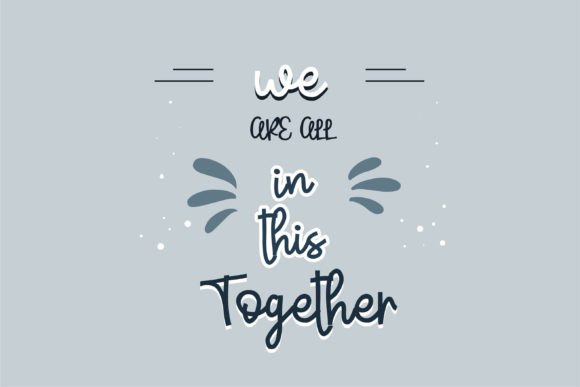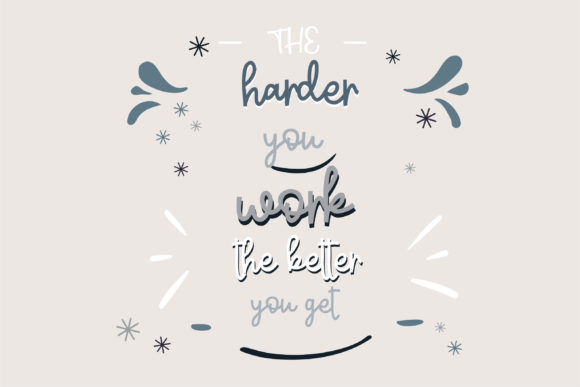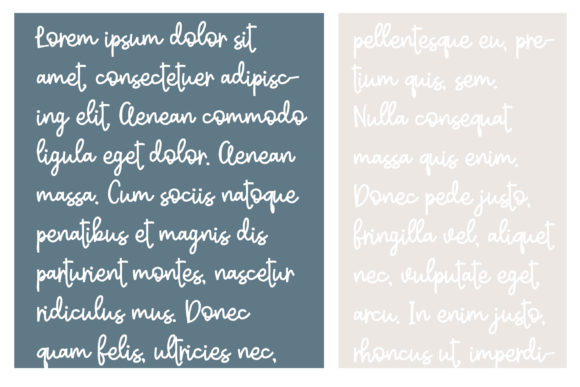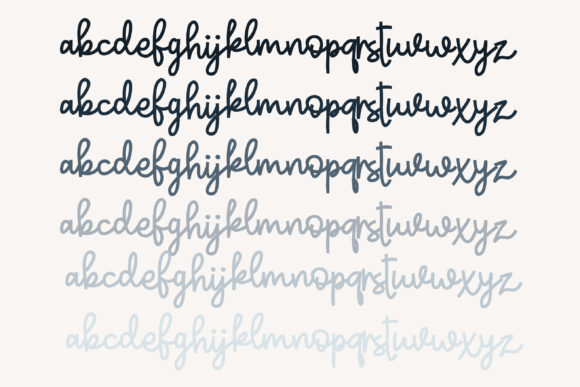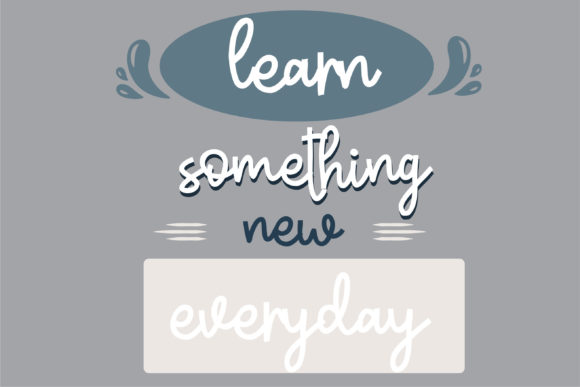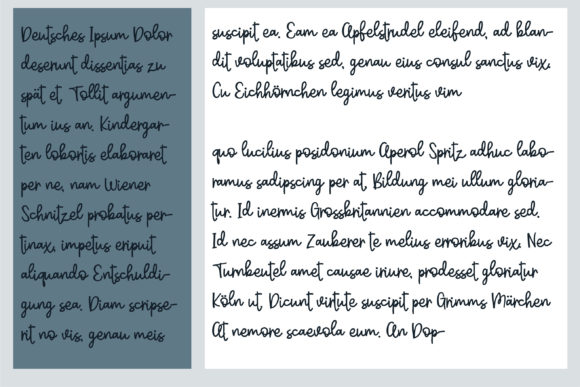
Discover the Magic of PN Pillowcase Font
Have you ever found yourself staring at a blank page, desperate for inspiration to strike? For designers, this moment is all too familiar. But what if I told you that the perfect spark is just a font away? Introducing the PN Pillowcase Font – a sweet, bouncy, and chic handwritten font that’s about to revolutionize your creative projects.
This versatile font is the ultimate design resource, capable of elevating any creation with its unique charm. Whether you’re working on a project that requires a touch of whimsy or a high-quality design that demands sophistication, PN Pillowcase Font is the perfect choice. With its transparent background and free download availability, you can seamlessly integrate this font into your workflow without any hassle.
Key Features of PN Pillowcase Font
- Unique, hand-drawn design perfect for creative projects, offering a distinctive touch to any visual composition.
- Features a high-quality design with precise details, suitable for both digital and print applications.
- Perfect for use in creative projects, such as branding, typography, and graphic design, where a unique and eye-catching font is desired.
Honest Review: PN Pillowcase Font
As a designer, I’m always on the lookout for high-quality design resources to elevate my creative projects. Recently, I had the chance to try out the PN Pillowcase Font, and I’m excited to share my honest review with you.
What works well: ✨ The PN Pillowcase Font is a beautiful, elegant script font that’s perfect for adding a touch of sophistication to any design. It’s available for free download, which is a huge plus in my book. The font’s transparent background makes it super easy to customize and use in a variety of creative projects.
What doesn’t: ⚠️ While the font itself is lovely, I found the character set to be a bit limited. There are only a few variations of the font available, which can make it tricky to use in longer blocks of text.
Overall, I’d say the PN Pillowcase Font is a great addition to any designer’s toolkit. Its high quality and free download make it a great choice for creative projects, but be aware of the limitations in the character set.
- Perfect for adding a touch of elegance to designs
- Limited character set
PN Pillowcase Font
The PN Pillowcase Font is a versatile design resource ideal for creative projects. It offers a unique, high-quality aesthetic that can elevate your designs to the next level.
Tips for Getting the Most Out of PN Pillowcase Font
To get the most out of the PN Pillowcase Font, consider the following tips:
- Use a transparent background to create a clean and modern look.
- Experiment with different font sizes and colors to find the perfect combination.
Common Use Cases for PN Pillowcase Font
The PN Pillowcase Font is perfect for a variety of creative projects, including:
- Print materials and business cards
Can I use the PN Pillowcase Font with a transparent background?
Yes, the PN Pillowcase Font supports transparent backgrounds, making it ideal for use with images, logos, or other design elements. This feature allows you to create a seamless and professional-looking design.